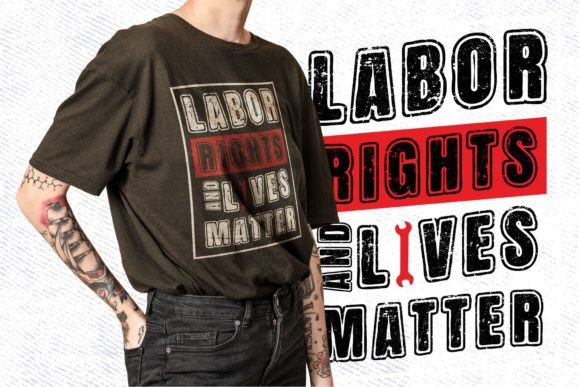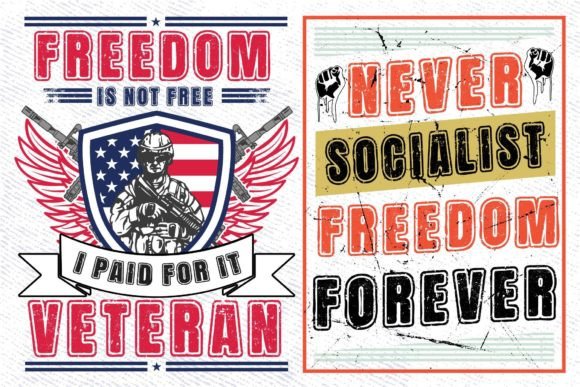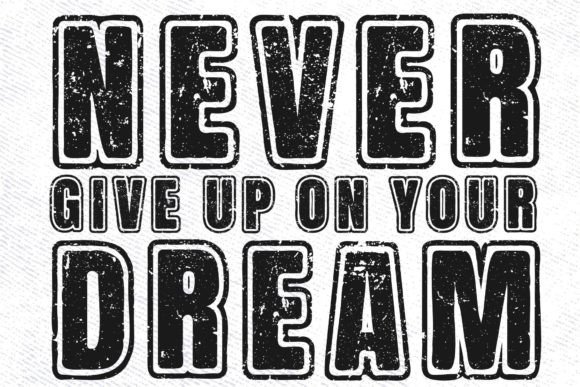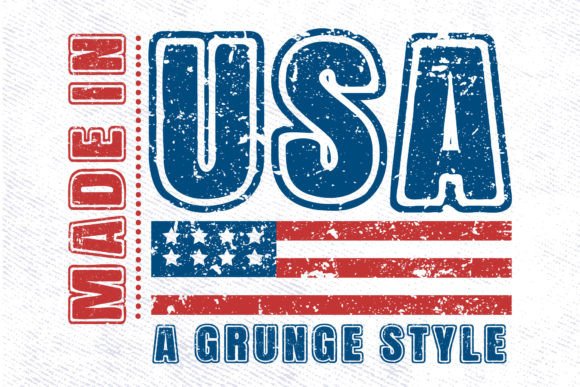
Made in Usa Font
About Made in Usa Font
Made in USA is a cool and retro-styled display font that brings a touch of nostalgia and assertiveness to your designs. With its vintage-inspired look, it is particularly well-suited for t-shirt designs, sports-related projects, or any creations that require a bold and patriotic vibe.
The unique style of Made in USA adds character and personality to your designs, allowing you to capture the spirit of American heritage and pride. Whether you’re creating designs for Independence Day, sports events, or simply expressing your love for the United States, this font will make a statement.
Its assertive and eye-catching appearance makes it perfect for conveying a strong message or emphasizing key elements in your designs. Made in USA can be used to create impactful headlines, logos, and branding materials that grab attention and evoke a sense of Americana.
Unleash your creativity and let Made in USA become a key element in your design toolbox. Whether you’re working on t-shirts, sports-related creations, or any projects that require a cool and retro style, this font will add that extra touch to make your designs stand out. Enjoy the process of designing with Made in USA and create visually stunning and assertive visuals that leave a lasting impression.